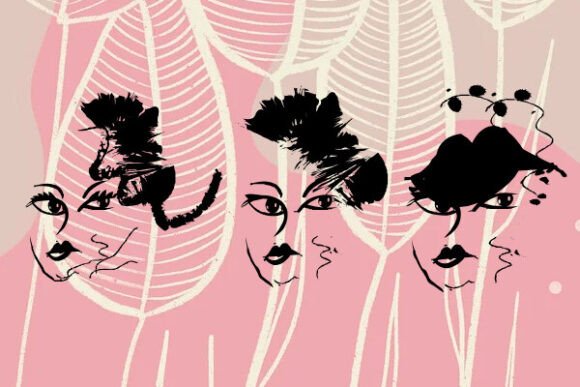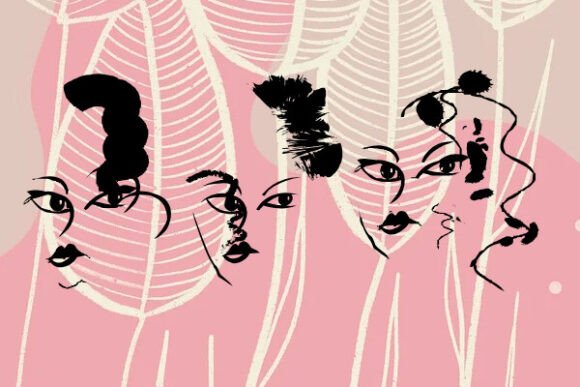
Babaye Font: Elevate Your Designs with Style
Are you tired of using the same old fonts in your designs? Look no further than Babaye, a stylish dingbat font that’s sure to take your creations to the next level. With its unique and eye-catching design, Babaye is perfect for adding a touch of personality to flyers, t-shirts, posters, and more.
What is Babaye Font?
Babaye is a dingbat font that features a collection of stylish and modern designs. Unlike traditional fonts, dingbat fonts use symbols and icons instead of letters, making them perfect for adding visual interest to your designs. Babaye is a carefully crafted font that includes a wide range of symbols, from simple shapes to intricate designs, giving you endless options for creative expression.
Why Choose Babaye Font?
So why choose Babaye font for your designs? Here are just a few reasons why this font stands out:
- Unique and eye-catching: Babaye’s designs are unlike anything you’ve seen before. With its unique combination of shapes and symbols, this font is sure to grab attention and make your designs stand out.
- Versatile: Babaye is perfect for a wide range of design applications, from flyers and posters to t-shirts and other merchandise.
- High-quality: Babaye is a high-quality font that’s been carefully crafted to ensure that it looks great in any design.
Ideas for Using Babaye Font
Here are a few ideas for using Babaye font in your designs:
- Flyers and posters: Babaye is perfect for creating eye-catching flyers and posters that will grab attention and communicate your message.
- T-shirts and merchandise: Use Babaye to create unique and stylish designs for t-shirts, hats, and other merchandise.
- Social media graphics: Babaye’s designs are perfect for social media graphics, such as Facebook posts and Instagram stories.
- Wedding and event decor: Use Babaye to create beautiful and unique decorations for weddings, parties, and other events.
In conclusion, Babaye font is a stylish and versatile dingbat font that’s perfect for adding a touch of personality to your designs. With its unique and eye-catching designs, Babaye is sure to take your creations to the next level. Whether you’re a designer, crafter, or DIY enthusiast, Babaye is a must-have font that’s sure to inspire your creativity.